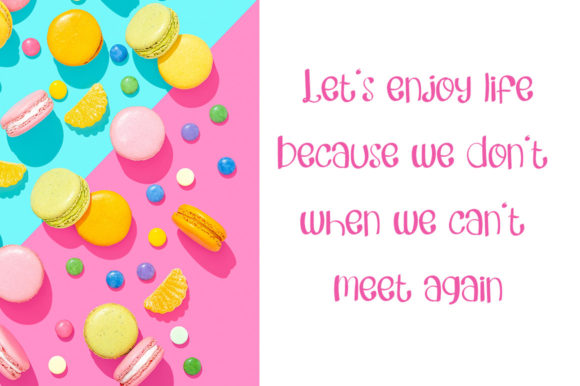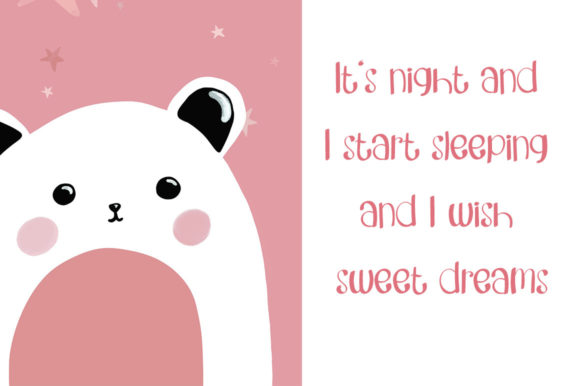
Someone Font
db-ku.com - Script & Handwritten -- Someone is a chic, round lettered and delicate script font. Its stylish alternates and ligatures make this font the perfect match for any project.